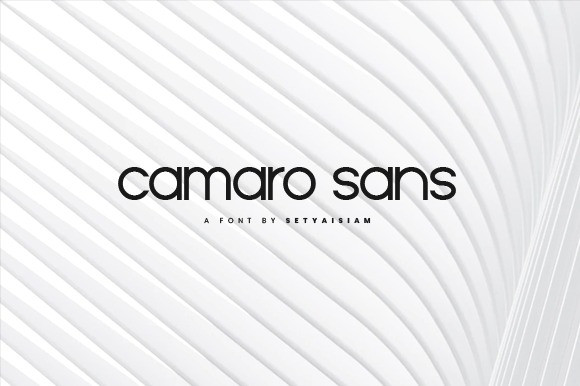
Camaro Sans Serif Font
Camaron feels equally charming and elegant. It features an incredibly classic style, while still keeping a friendly feel. This sans serif font is the perfect font for making original and outstanding designs.